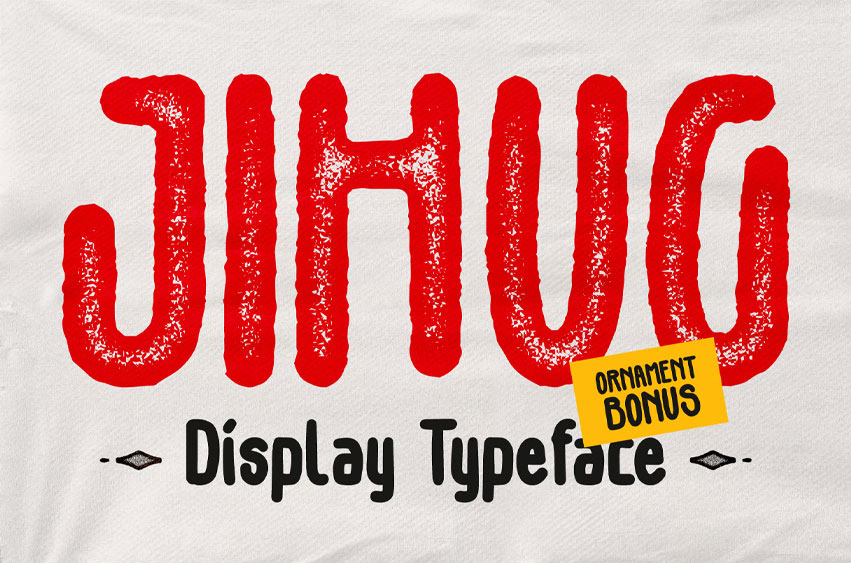
Jihug Font is a bold and quirky display typeface designed to bring personality and energy to your creative projects. With its hand-drawn feel, playful curves, and uneven texture, Jihug is perfect for projects that need a fun, informal, and eye-catching aesthetic.
To make it even more special, this typeface includes bonus devilish ornaments that amplify its unique character, great for creative titles or thematic visuals.